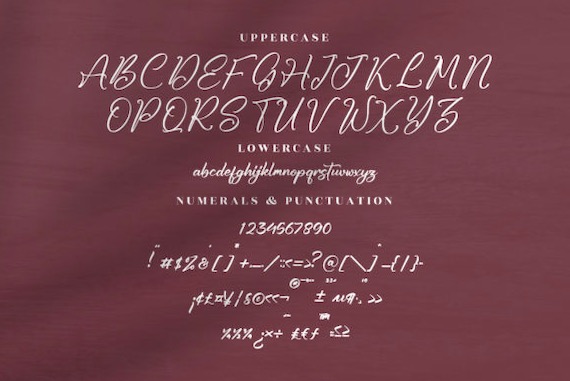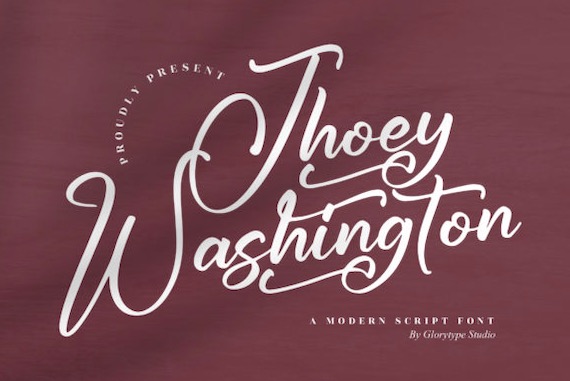
Jhoey Washington Font is an elegant and beautiful handwritten script typeface that was created and shared by Glorytype Studio. It has beautiful and well-balanced characters and as a result, it matches a wide pool of designs. Jhoey Washington is PUA encoded which means you can access all of the glyphs and swashes with ease!
Jhoey Washington Script Font
Font family: Jhoey Washington Font
Full font name: Jhoey Washington Font
Publisher: Glorytype Studio